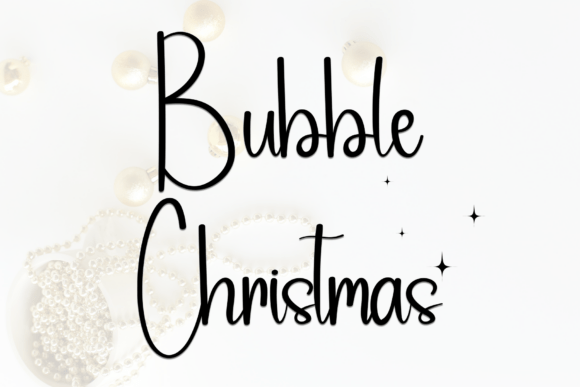
The Magic of Bubble Christmas Font: A Designer’s Delight
Ah, the quest for the perfect font! I recall working on a Christmas project last year, determined to create a whimsical and festive design. Hours ticked by as I scrolled through font after font, none seemed quite right. That was until I stumbled upon the charming Bubble Christmas font. Its playful, handwritten style instantly captured the essence of the holiday season. In this article, I’ll share my experience with this delightful font, its features, and how to make the most of it in your designs.
An Honest Review of Bubble Christmas Font
- ✅ The relaxed and sporty feel of Bubble Christmas makes it perfect for a wide range of design projects, from branding to greeting cards.
- ✅ Its elegant yet casual vibe allows it to seamlessly transition between luxury and laid-back designs.
- ✅ The font’s marker-like quality gives it a unique, hand-crafted feel that’s hard to replicate with other fonts.
- ✅ It’s incredibly versatile, suitable for both digital and print designs.
While Bubble Christmas is an excellent font, it’s not without its quirks. For instance:
- 🤔 It may not be the best choice for very formal or traditional designs, as its casual nature might not fit the tone.
- ⚠️ Some characters might require manual adjustments for optimal spacing and alignment, especially in larger text sizes.
- Explore OpenType features, glyphs, and stylistic alternates to add more personality to your text.
Bubble Christmas font comes with a range of OpenType features and glyphs that can elevate your designs. Look for:
- Stylistic alternates: Swappable characters that offer different versions of letters and symbols.
- Glyphs: Additional characters, like ornaments and flourishes, that can add a decorative touch.
The Story Behind Bubble Christmas Font
The Bubble Christmas font was created with the intention of capturing the joy and playfulness of the holiday season. Its designer aimed to craft a font that felt both luxurious and casual, perfect for a wide range of design applications. By combining the elegance of traditional typography with the whimsy of handwritten script, Bubble Christmas was born.
Q: What type of designs is Bubble Christmas best suited for?
A: Bubble Christmas is versatile and can be used for branding, logos, wedding supplies, greeting cards, fashion, lookbooks, marketing promotions, and more.
Q: Is Bubble Christmas a difficult font to work with?
A: Not at all! Bubble Christmas is relatively easy to use, especially for those familiar with typography and design software. Its OpenType features and glyphs make it easy to customize and adapt to your design needs.